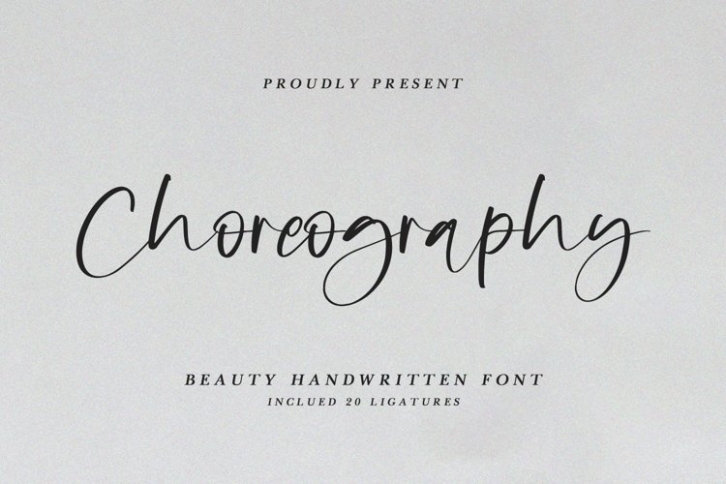
Choreography is a gorgeous font that was realeased on April 30, 2022. The font can be used in many style contexts and design environments. Perfect for invitations, magazines, websites, logos, and more! It was designed by plusstore and the file size is 11.30 MB. Thanks for checking out this font!